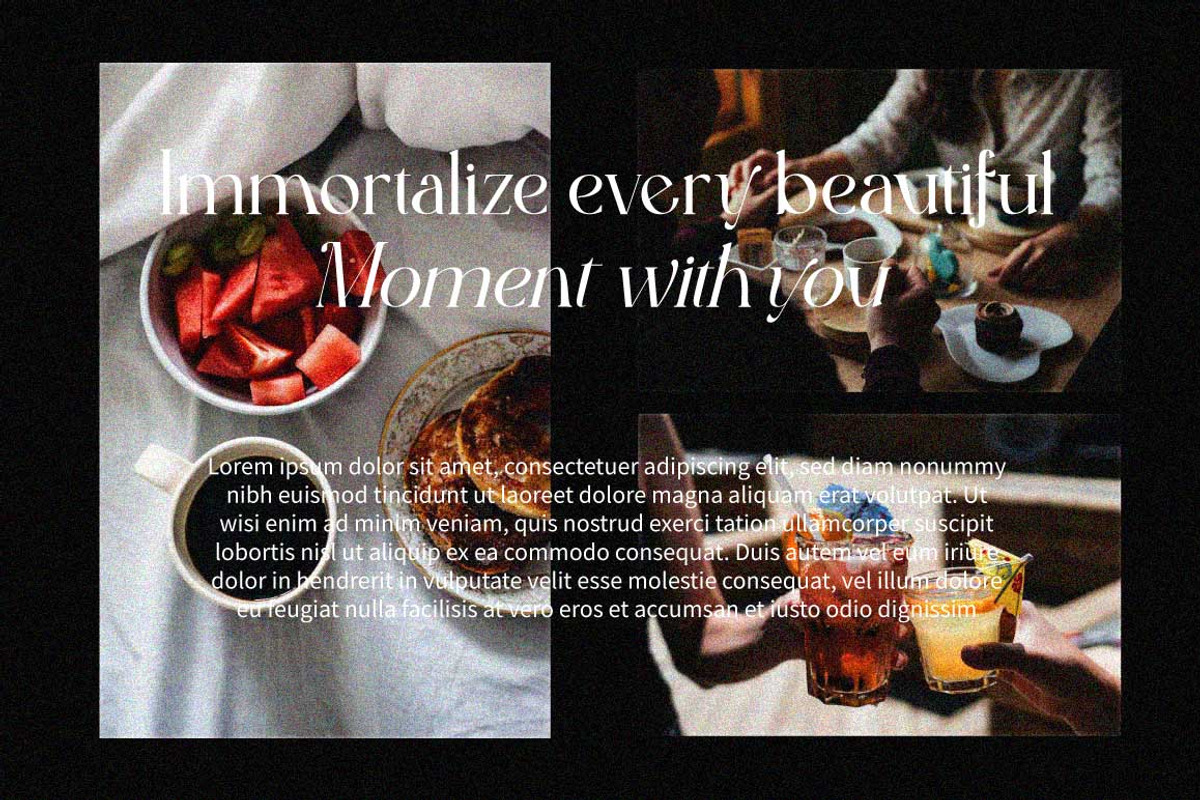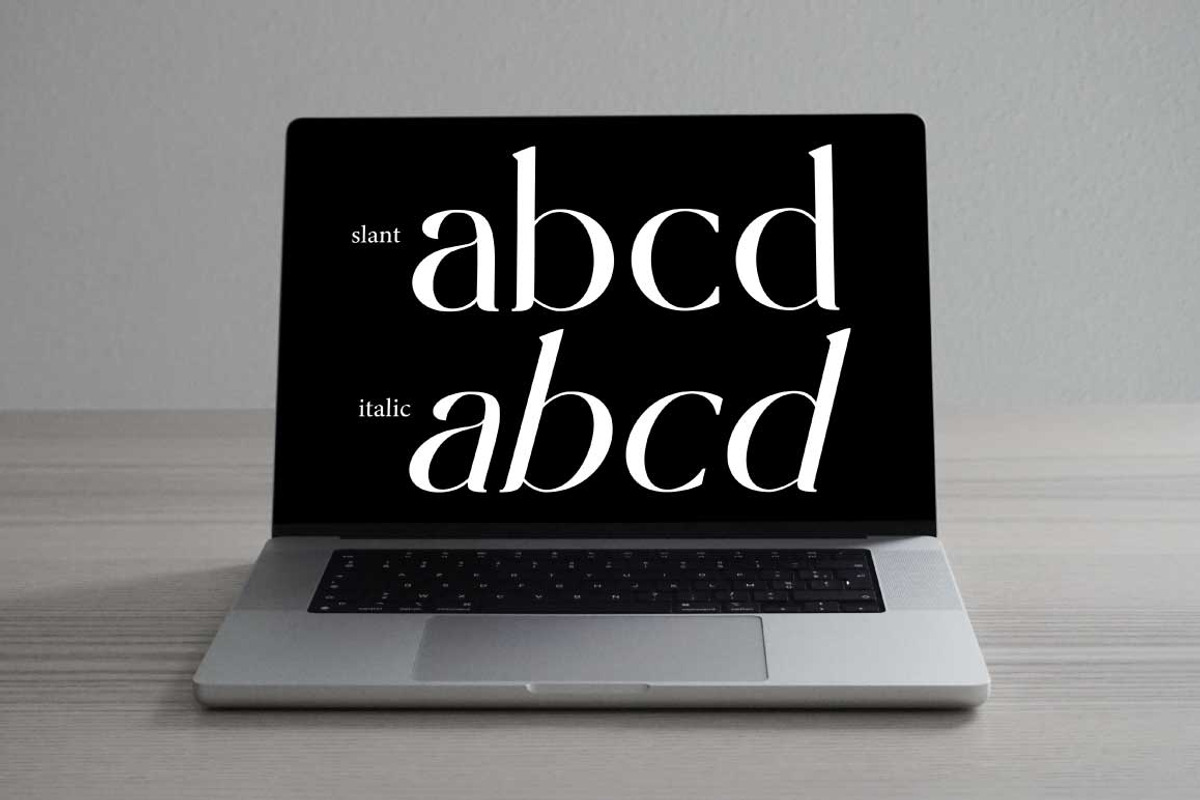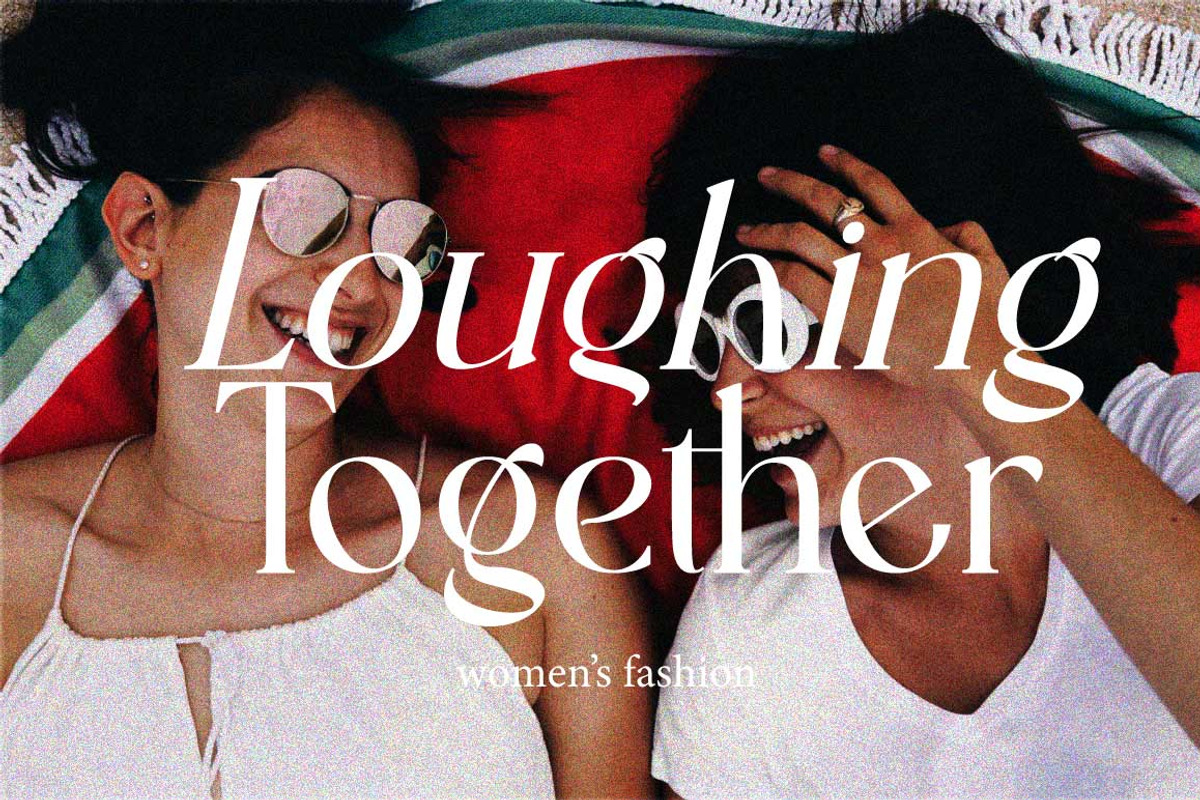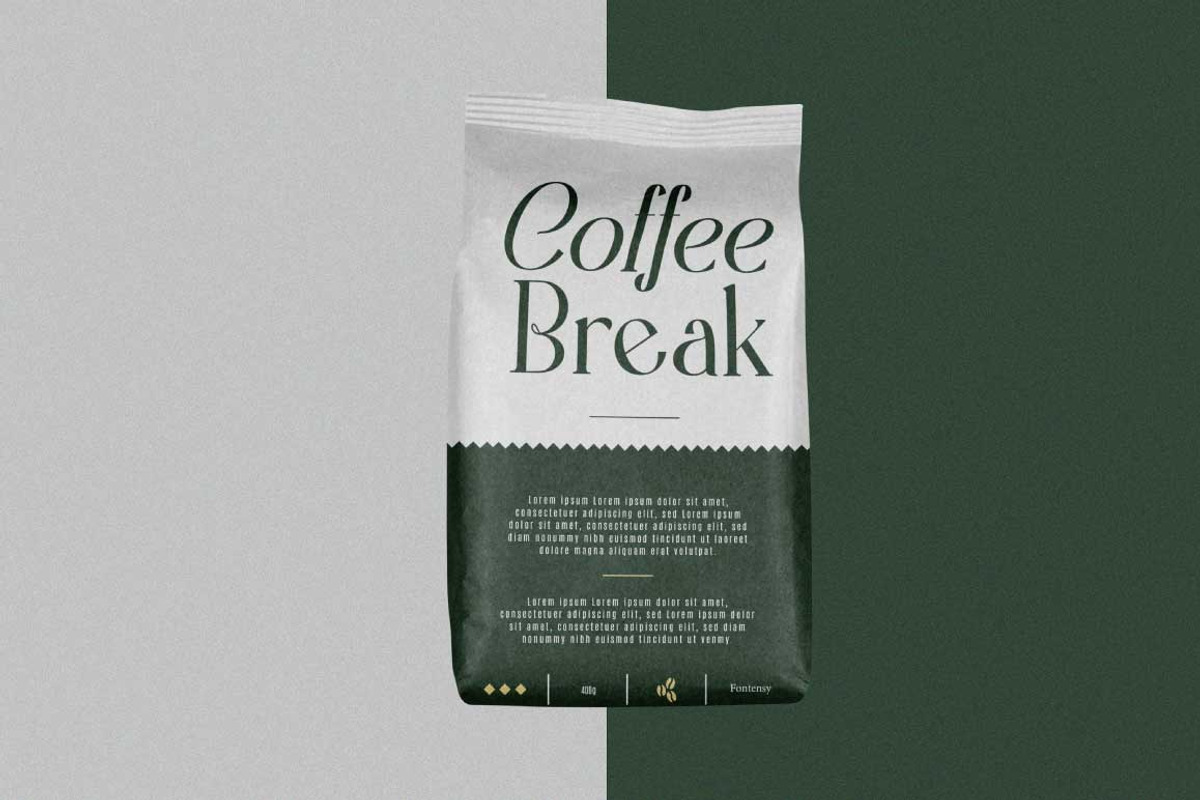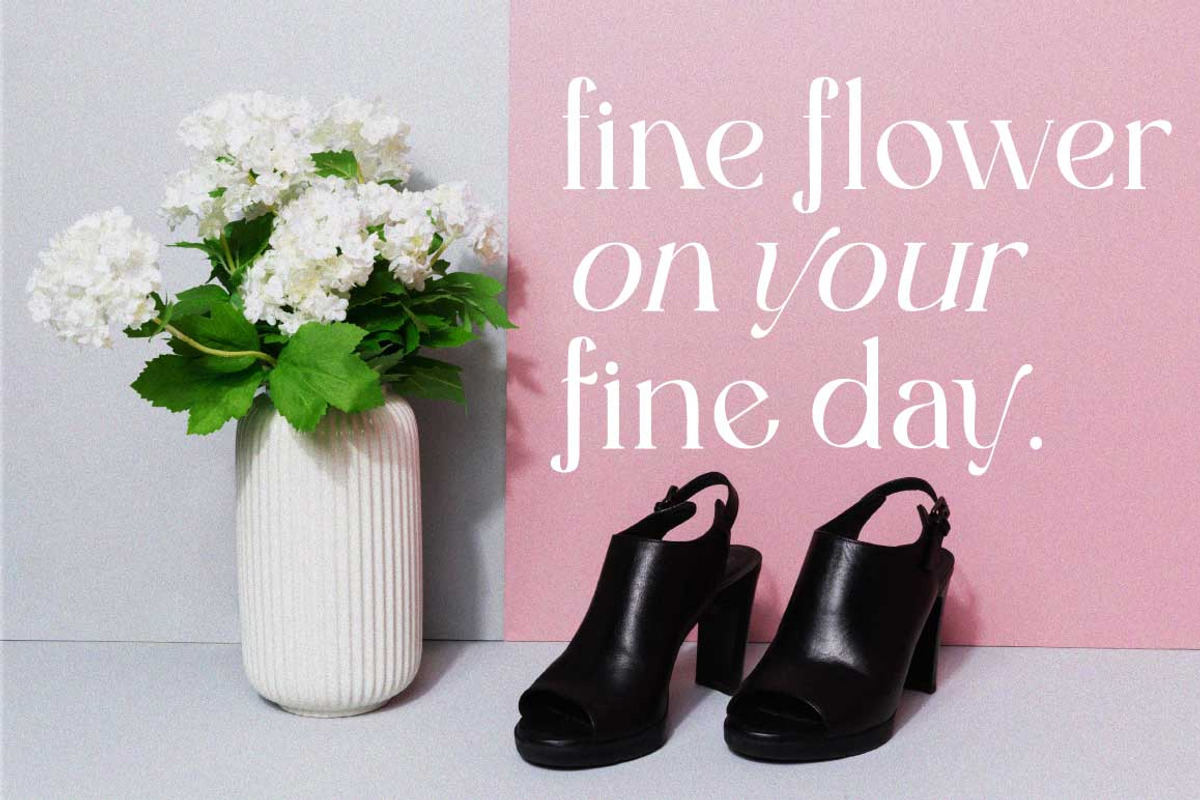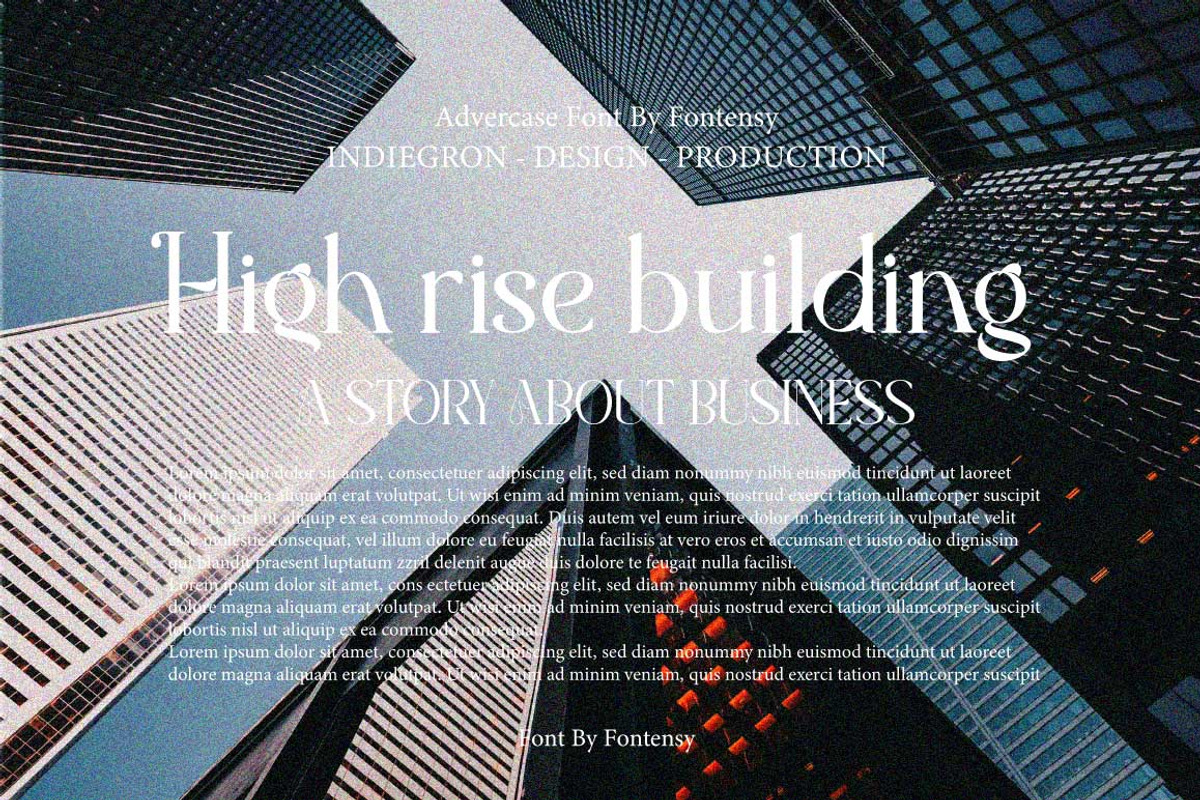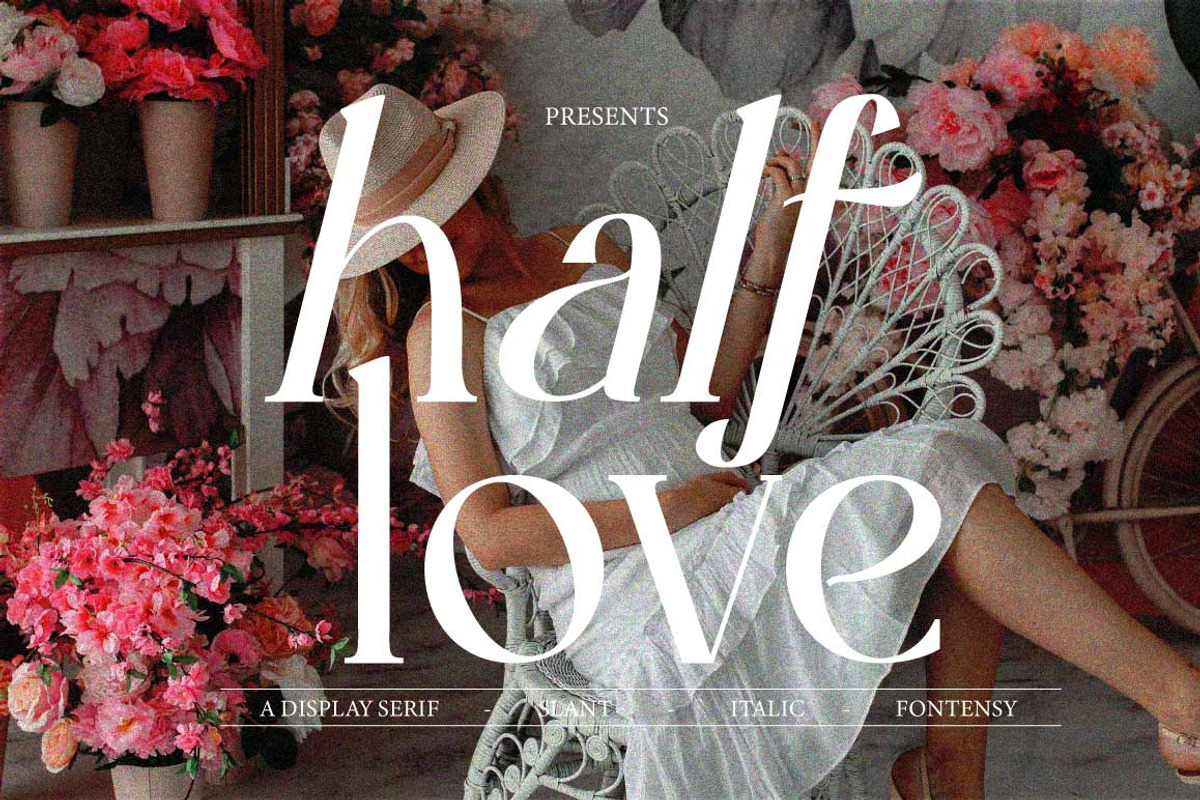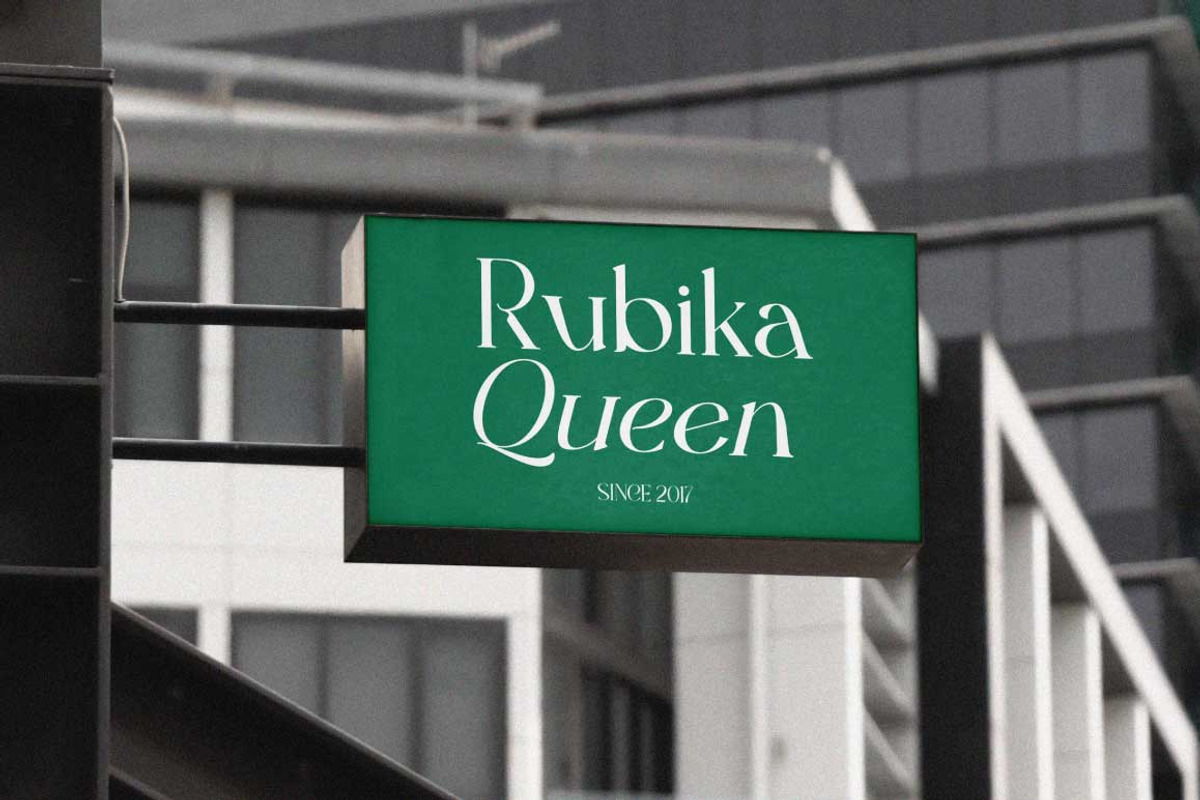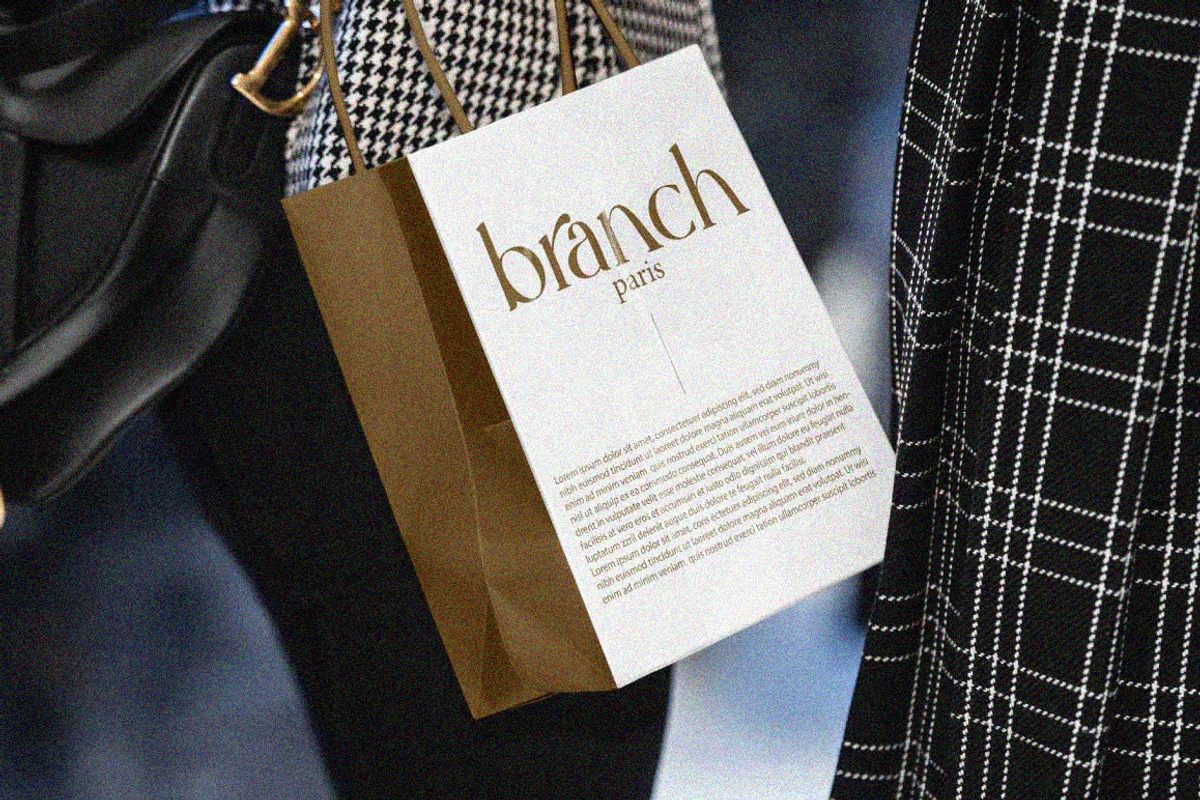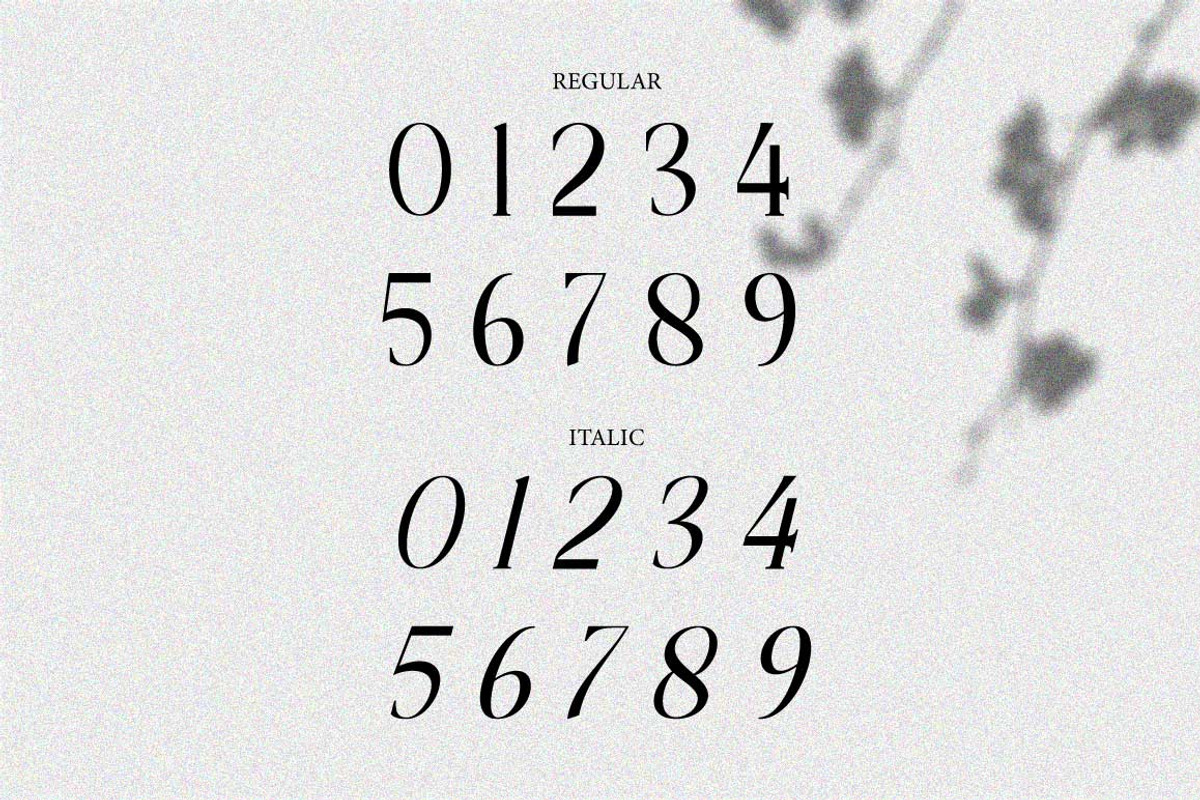
Half Love Serif Display Elegant
I'm present to you, new retro serif called Half Love!
Half Love is a stylish font that is both retro and bold font. It's thick curves give a 70s groovy vibe with the serifs bringing it slightly back to traditional
Half Love fits perfectly into those nostalgic moodboards and vintage logos. It come with a unique lower and uppercase plus numbers, punctuation & multilingual letters.